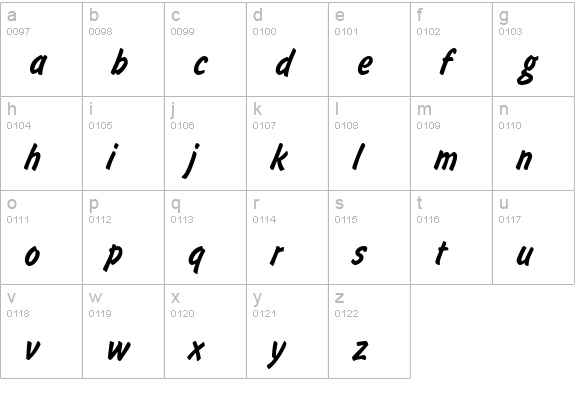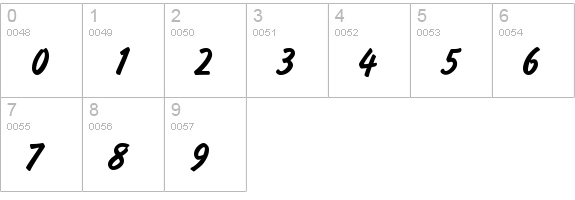
FlashDLig Font Details
FlashDLig font is a modern and stylish typeface that exudes a sense of energy and movement. With its sleek lines and dynamic curves, this font is perfect for projects that require a touch of sophistication and flair. The unique design of FlashDLig font makes it stand out from the crowd, adding a contemporary edge to any design. Best of all, FlashDLig font is available for free download at FontsMarket.com. This means you can easily access this eye-catching font and use it in your projects without any cost. Whether you're working on a logo, branding, or any other creative project, FlashDLig font is sure to make a statement and leave a lasting impression. Download it today and add a touch of style to your designs!